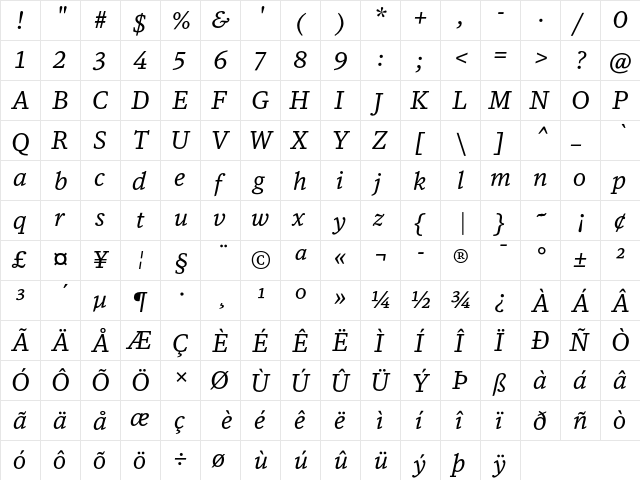
DB News Regular Italic
Design Context for DB News Typeface
DB News offers clean, dependable letterforms without strong stylistic allegiance, making it a practical choice for designers who need flexibility. The slanted form adds forward momentum and visual energy.
Pro Tip: Try DB News for annotation and caption copy alongside an upright companion — the contrast in angle creates a dynamic but ordered typographic system.